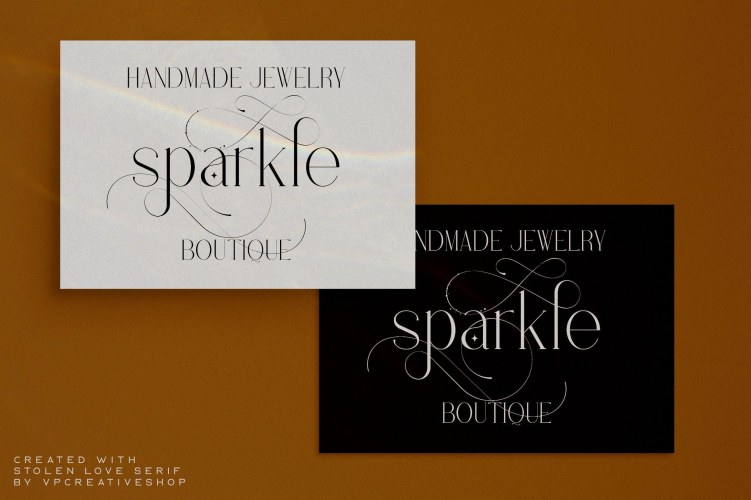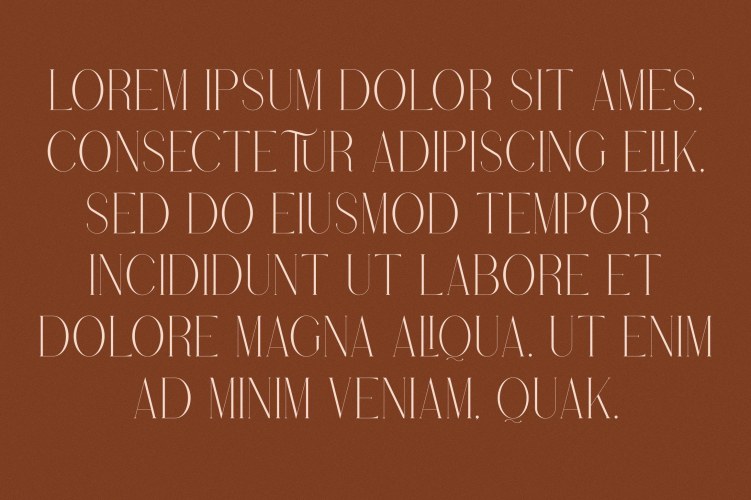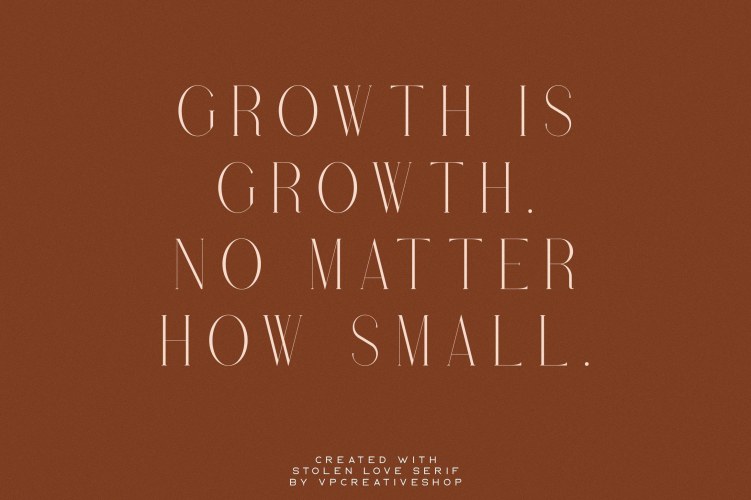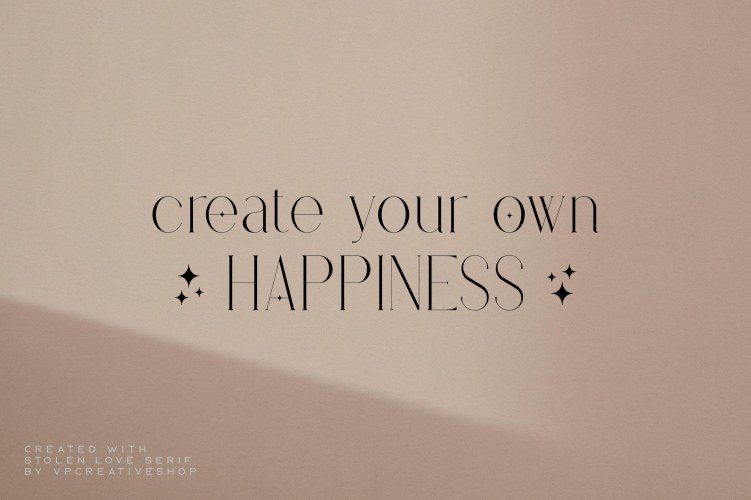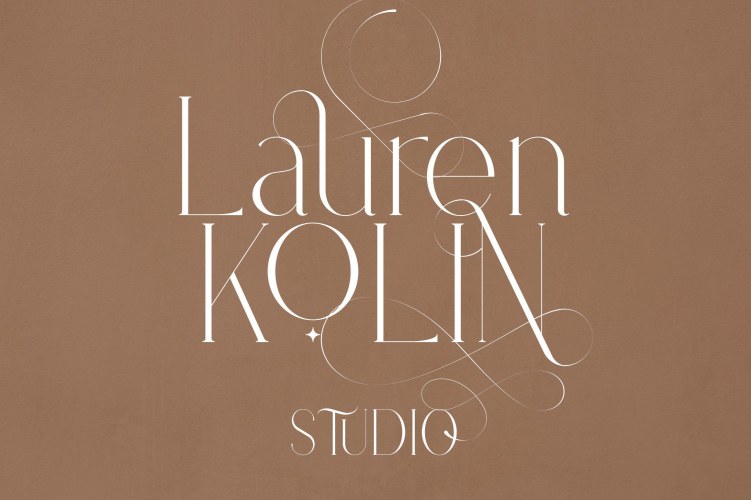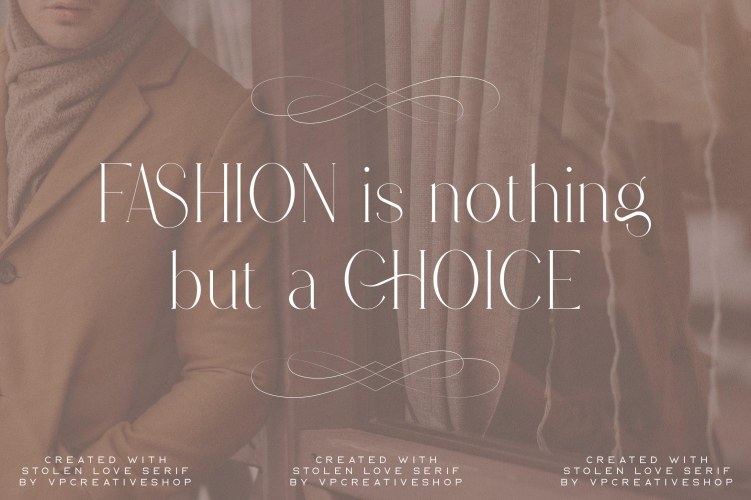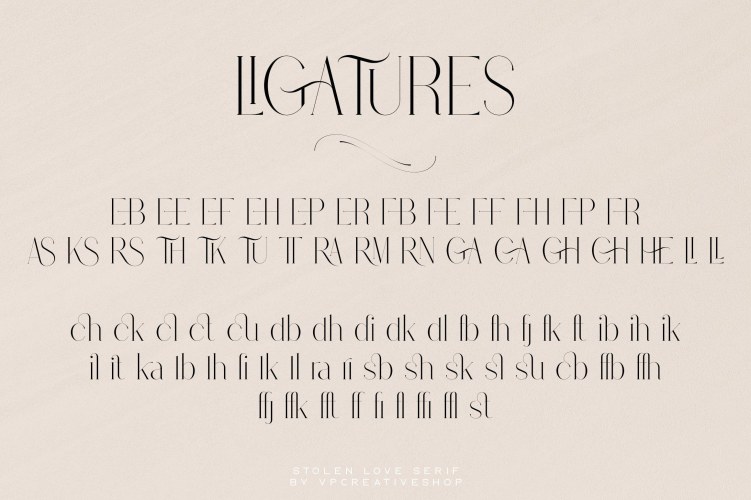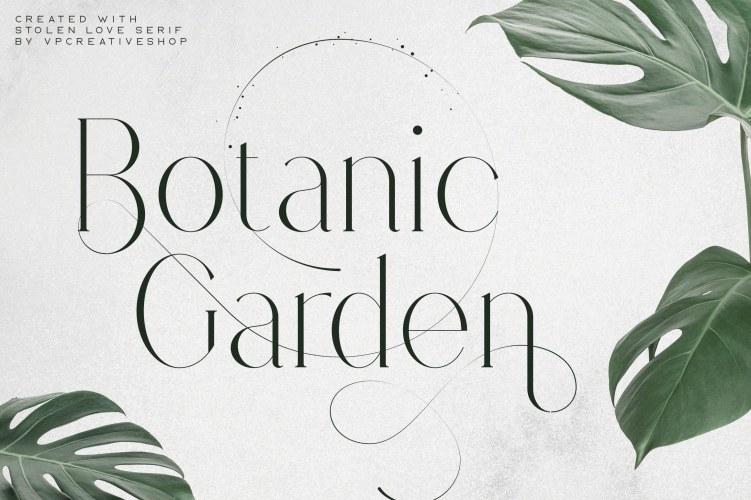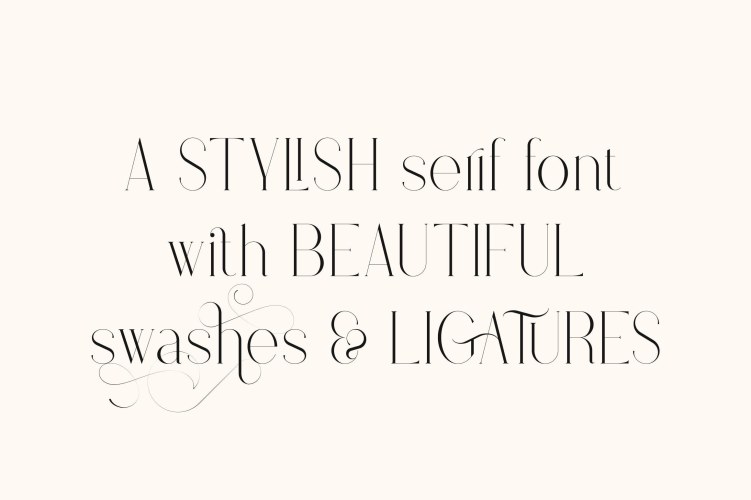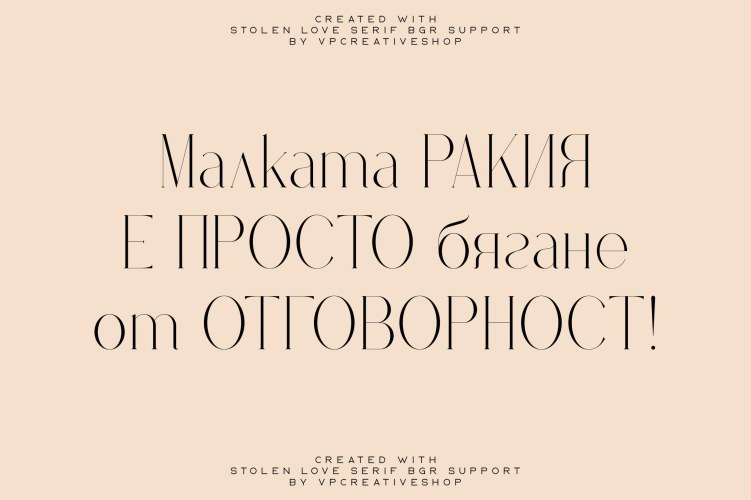
Stolen Love Font Family
Stolen Love is a stylish and creative typeface with 6 different fonts, alternate and ligature glyphs, 52 swashes in 3 different sizes, and 26 ornaments to make your typography unique!
Stolen Love Font Family is a Font Family font that brings a professional and versatile look to your projects. Stolen Love is a stylish and creative typeface with 6 different fonts, alternate and ligature glyphs, 52 swashes in 3 different sizes, and 26 ornaments to make your typography unique!.